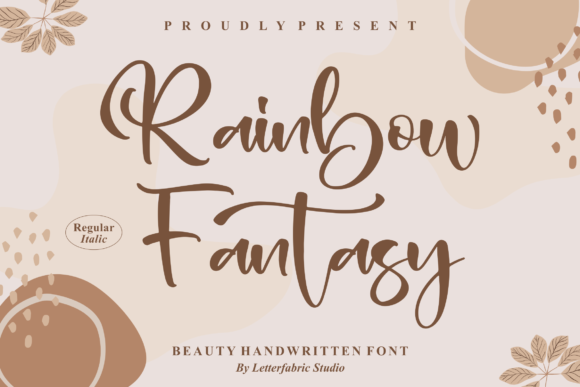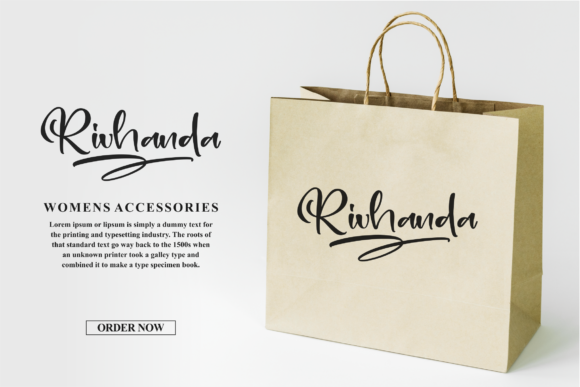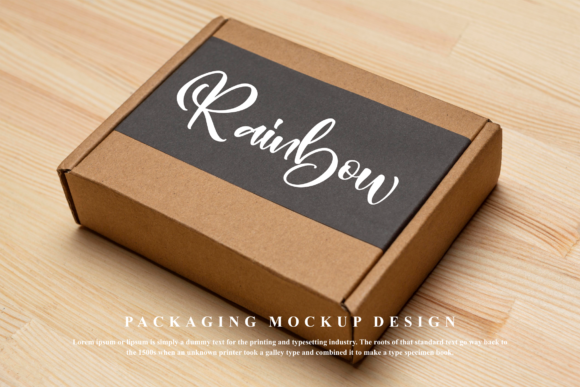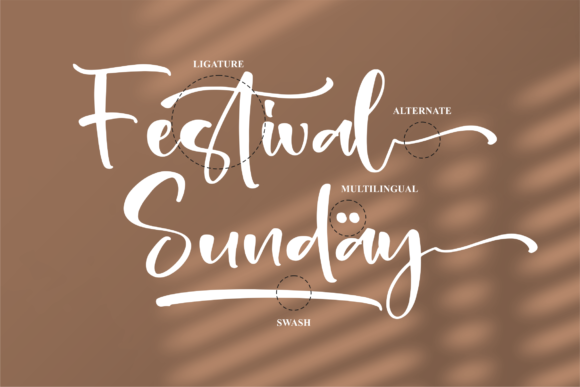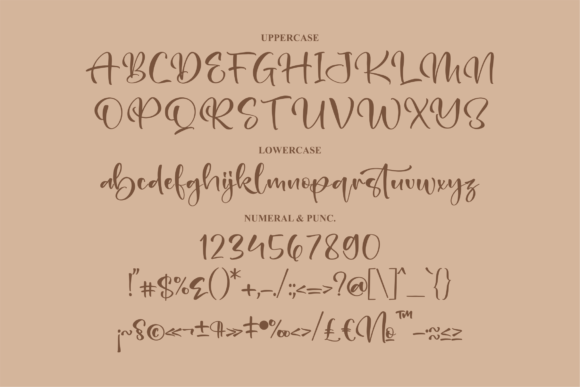
Rainbow Fantasy Font
About Rainbow Fantasy Font
Rainbow Fantasy is a sophisticated handwritten font that’s great for delivering any message with confidence, authenticity and charm. This font is PUA encoded which means you can access all glyphs and swashes with ease!